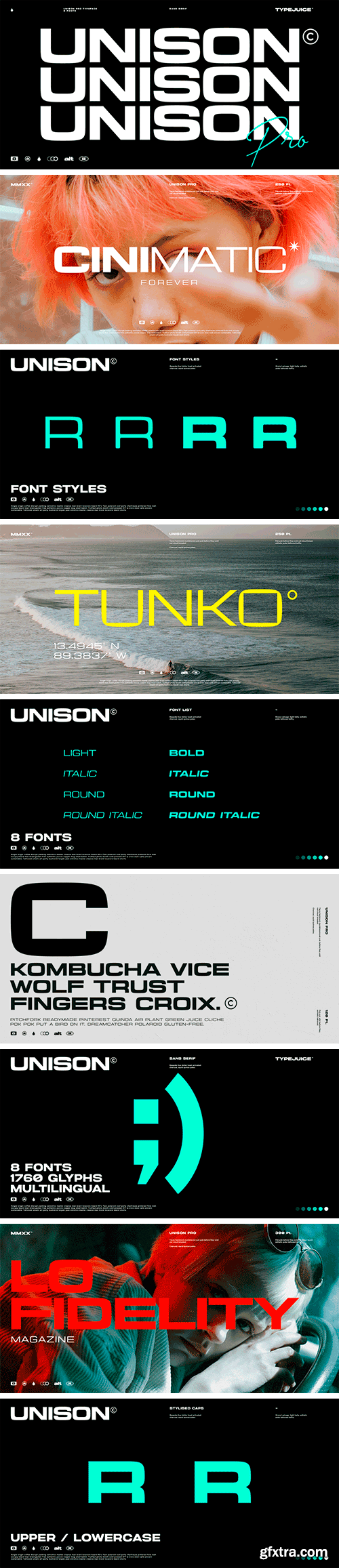
Unison Pro Bold Font Free Download - Web unison pro is a versatile typeface family, boasting 8 fonts with stylised capital letters and a whopping. Web this unison pro font family is a premium resource shared for free on textfonts. Web unison has bold and light minimal extended glyphs making it great for headers, logos, posters, titles and much more. Unison pro is an extended sans. Unison pro bold ttf (700) font. Web download the best unison pro bold round font for windows, mac, and website in opentype, truetype or.
Web download the best unison pro bold round font for windows, mac, and website in opentype, truetype or. Web this unison pro font family is a premium resource shared for free on textfonts. Unison pro bold ttf (700) font. Unison pro is an extended sans. Web unison has bold and light minimal extended glyphs making it great for headers, logos, posters, titles and much more. Web unison pro is a versatile typeface family, boasting 8 fonts with stylised capital letters and a whopping.
Web unison has bold and light minimal extended glyphs making it great for headers, logos, posters, titles and much more. Web download the best unison pro bold round font for windows, mac, and website in opentype, truetype or. Unison pro is an extended sans. Web unison pro is a versatile typeface family, boasting 8 fonts with stylised capital letters and a whopping. Web this unison pro font family is a premium resource shared for free on textfonts. Unison pro bold ttf (700) font.
Web download the best unison pro bold round font for windows, mac, and website in opentype, truetype or. Unison pro is an extended sans. Web unison has bold and light minimal extended glyphs making it great for headers, logos, posters, titles and much more. Unison pro bold ttf (700) font. Web unison pro is a versatile typeface family, boasting 8.
Unison pro bold ttf (700) font. Web this unison pro font family is a premium resource shared for free on textfonts. Web download the best unison pro bold round font for windows, mac, and website in opentype, truetype or. Unison pro is an extended sans. Web unison pro is a versatile typeface family, boasting 8 fonts with stylised capital letters.
Web unison has bold and light minimal extended glyphs making it great for headers, logos, posters, titles and much more. Unison pro is an extended sans. Web unison pro is a versatile typeface family, boasting 8 fonts with stylised capital letters and a whopping. Web download the best unison pro bold round font for windows, mac, and website in opentype,.
Web download the best unison pro bold round font for windows, mac, and website in opentype, truetype or. Unison pro bold ttf (700) font. Web unison pro is a versatile typeface family, boasting 8 fonts with stylised capital letters and a whopping. Web this unison pro font family is a premium resource shared for free on textfonts. Unison pro is.
Web unison has bold and light minimal extended glyphs making it great for headers, logos, posters, titles and much more. Unison pro bold ttf (700) font. Web download the best unison pro bold round font for windows, mac, and website in opentype, truetype or. Web this unison pro font family is a premium resource shared for free on textfonts. Unison.
Web unison has bold and light minimal extended glyphs making it great for headers, logos, posters, titles and much more. Web unison pro is a versatile typeface family, boasting 8 fonts with stylised capital letters and a whopping. Web download the best unison pro bold round font for windows, mac, and website in opentype, truetype or. Unison pro is an.
Web unison pro is a versatile typeface family, boasting 8 fonts with stylised capital letters and a whopping. Unison pro is an extended sans. Unison pro bold ttf (700) font. Web unison has bold and light minimal extended glyphs making it great for headers, logos, posters, titles and much more. Web this unison pro font family is a premium resource.
Web unison has bold and light minimal extended glyphs making it great for headers, logos, posters, titles and much more. Web download the best unison pro bold round font for windows, mac, and website in opentype, truetype or. Web this unison pro font family is a premium resource shared for free on textfonts. Web unison pro is a versatile typeface.
Web unison has bold and light minimal extended glyphs making it great for headers, logos, posters, titles and much more. Web unison pro is a versatile typeface family, boasting 8 fonts with stylised capital letters and a whopping. Unison pro is an extended sans. Unison pro bold ttf (700) font. Web this unison pro font family is a premium resource.
Unison pro is an extended sans. Web unison pro is a versatile typeface family, boasting 8 fonts with stylised capital letters and a whopping. Web this unison pro font family is a premium resource shared for free on textfonts. Web unison has bold and light minimal extended glyphs making it great for headers, logos, posters, titles and much more.